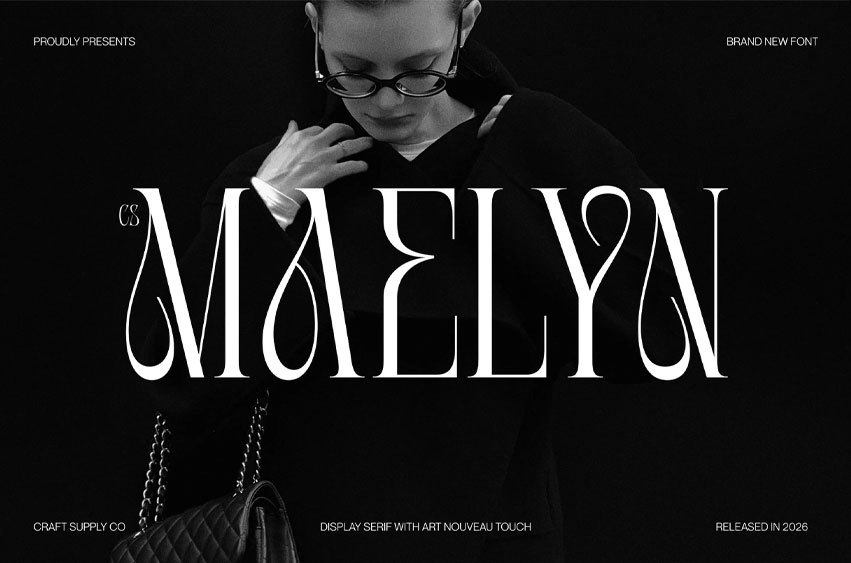
CS Maelyn Font Art Nouveau Display Serif Font: Where Ornamental Elegance Meets Artistic Expression Elegant Display Serif Font with Art Nouveau Influence This is a display serif font inspired by the graceful beauty and ornamental character of Art Nouveau typography. It combines elegant high-contrast strokes, flowing curves, and distinctive decorative details to create a sophisticated visual identity. Its expressive construction gives every character a refined artistic quality, making the font especially captivating when used at larger display sizes.
High-Contrast Strokes with Graceful Curves The font features elegant contrasts between delicate and stronger strokes, creating a refined typographic rhythm with plenty of visual sophistication. Its graceful curves soften the overall structure and introduce a sense of movement, while carefully balanced proportions maintain a polished appearance.
Art Nouveau Details with Ornamental Character This font draws inspiration from the organic forms and decorative elegance associated with the Art Nouveau movement. Its ornamental letterforms introduce flowing shapes and artistic details that transform ordinary typography into a visual feature. These distinctive elements give the font a romantic, sophisticated, and expressive character that works beautifully in elegant compositions.
Perfect for Fashion, Beauty, and Luxury Design Perfect for fashion branding, editorial covers, beauty packaging, invitations, posters, luxury identities, wedding stationery, and other elegant creative projects. Its expressive letterforms perform particularly well at large sizes, where its high contrast and ornamental details can take center stage.